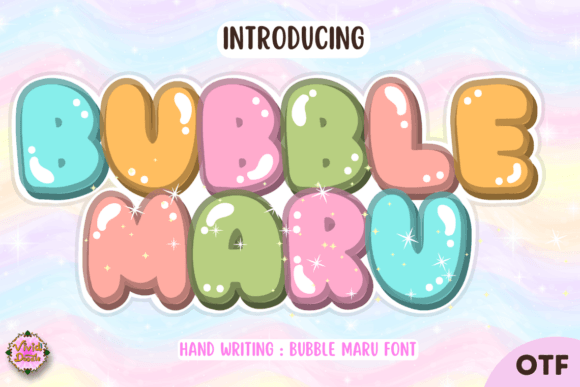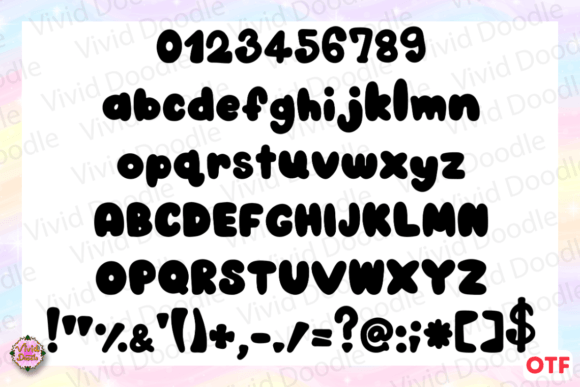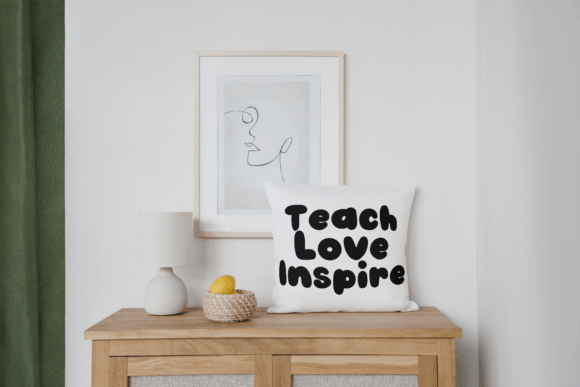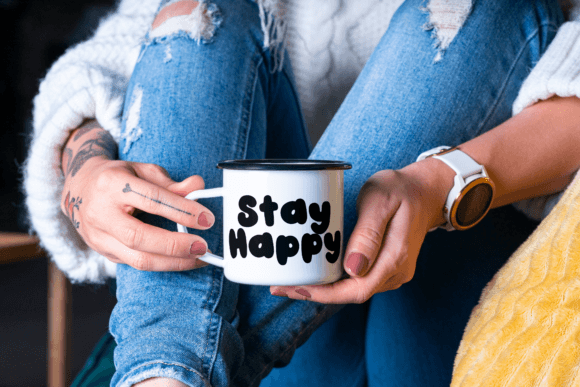
Bubble Maru Font: A Cute & Playful Font for Cricut & DIY Projects
About the Bubble Maru Font
Explore the possibilities with Bubble Maru Font, a font that offers both beauty and functionality. Experience the merriment of the season with our unique hand-lettered font, radiating festive cheer! Dive into the holiday spirit with this newly crafted font, thoughtfully designed to imbue your creations with the warm joy of the festive season. Get ready to enhance your projects with this adaptable, enchanting, and exclusive font, specially created for the holiday season but versatile enough to elevate any endeavor.
Bubble Maru Font’s playful, rounded forms make it ideal for headlines, short text blocks on packaging, and festive branding projects. Its informal nature shines in invitations, posters, and social media graphics. However, its low x-height and decorative elements render it unsuitable for body text or lengthy paragraphs, and its lightheartedness may clash with serious or corporate contexts.
Pairing Bubble Maru with a clean sans-serif like Open Sans for body copy creates a balanced and legible design. For a more sophisticated feel, consider pairing it with a classic serif font such as Garamond or a slightly more geometric sans-serif such as Lato.
Bubble Maru’s overall personality is undeniably cheerful and friendly, lending itself well to brands focused on fun, community, or celebrations. Avoid using it where professionalism or sophistication is paramount.
Bubble Maru Font Usage Examples
Bubble Maru Font Example